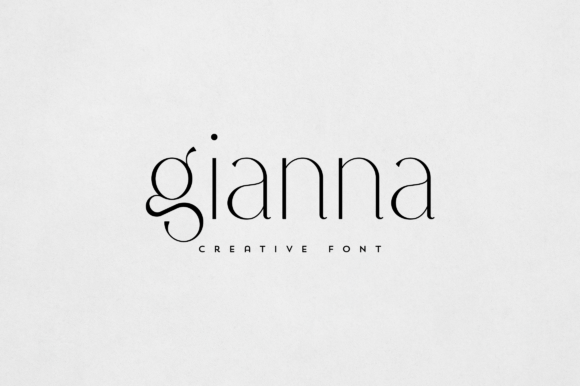
Introducing Gianna Font, the ultimate choice for those seeking the perfect typography to elevate their projects! Created by the talented vladfedotovv, this elegant and captivating sans serif font is guaranteed to make your designs truly stand out.
Are you tired of using the same old fonts that fail to capture attention? Look no further! Gianna Font is here to breathe new life into your creative endeavors. With its timeless charm and versatility, this font will add a touch of sophistication to any project, whether it's a wedding invitation, a logo, a headline, or even a simple block of text.
One of the most remarkable features of Gianna Font is its ability to adapt to various design needs. It effortlessly enhances branding projects, giving your company a unique and professional identity. Home-ware designs will come to life with this font, making your products even more visually appealing. And imagine the impact it will have on product packaging, captivating customers from the moment they lay eyes on it.
Magazine headers will never be the same again once you unleash the power of Gianna Font. Its elegant strokes and refined curves add a touch of sophistication to any publication, instantly capturing the reader's attention. Plus, it's incredibly easy to use as a stylish text overlay to complement any background image. Watch as your visuals transform into works of art with Gianna Font as the centerpiece.
But Gianna Font is not just a pretty face; it's also a font that resonates with emotions. Its timeless appeal evokes feelings of elegance, grace, and charm. With every letter, it creates an atmosphere of romance and sophistication that perfectly complements wedding invitations. Your guests will be captivated by the beauty of the font, setting the tone for a truly memorable occasion.
Now is the time to take your designs to the next level. Gianna Font is the key to unlocking a world of endless possibilities. Let it infuse your projects with elegance, versatility, and a touch of magic. With Gianna Font, your typography will never be the same again.